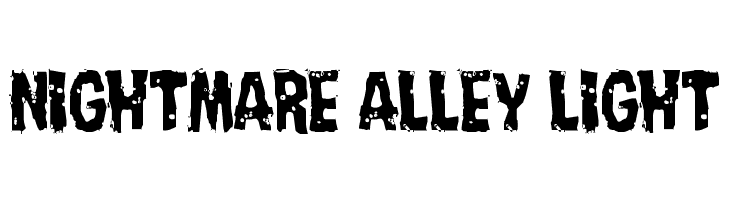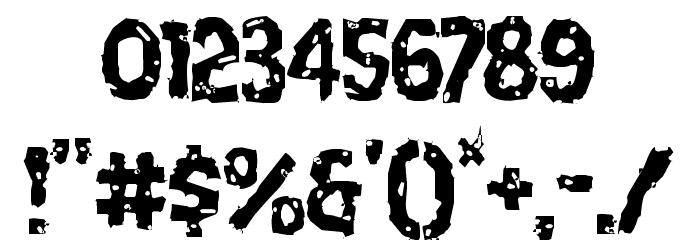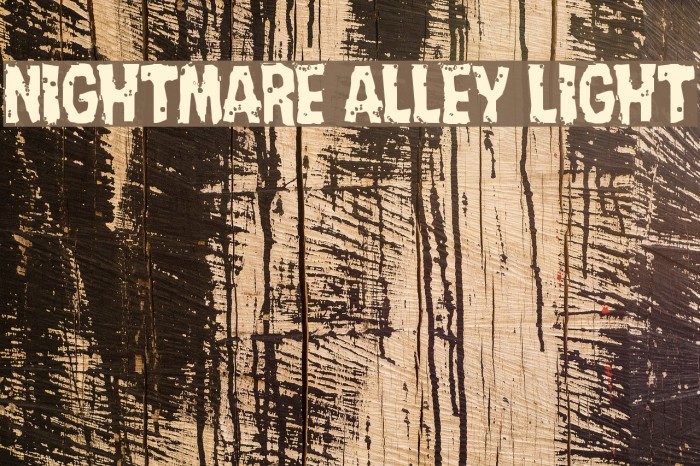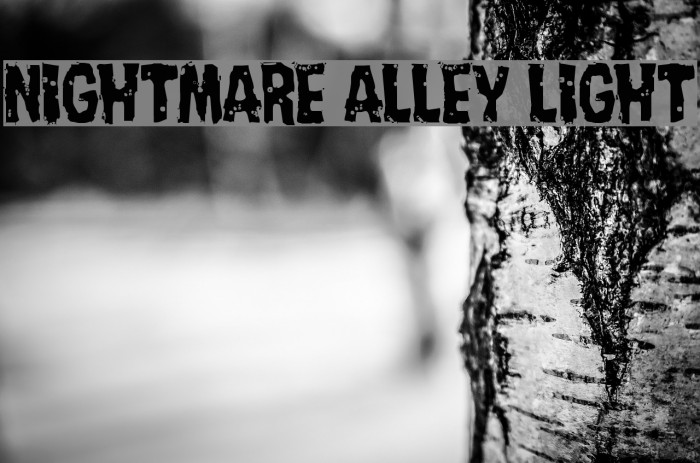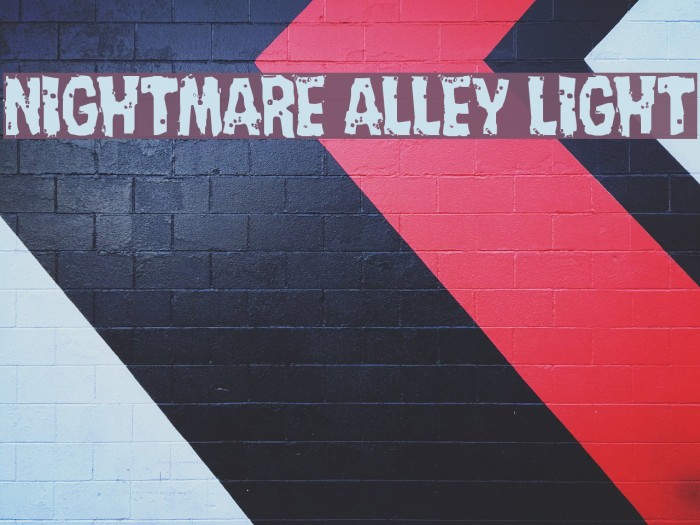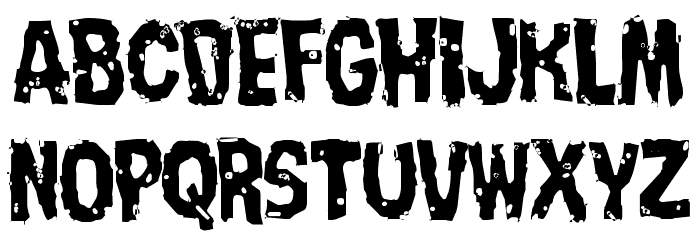
Nightmare Alley Light Font
Nightmare Alley Light Description
This font exhibits a distressed and grungy style, characterized by irregular edges and a rough texture that gives it a worn, vintage appearance. The letters are bold and impactful, with a slightly uneven baseline that adds to the chaotic and edgy aesthetic. The uppercase and lowercase letters maintain a consistent style, while the numbers and special characters follow the same rugged design. This font is ideal for projects that require a dramatic and eye-catching look, such as horror-themed designs or alternative music posters.
| Overall Style | Vintage, Grunge |
| Use Case | Headlines, Posters, Branding |
| Proposed Projects | Ideal for horror-themed designs, alternative music posters, and edgy branding. |